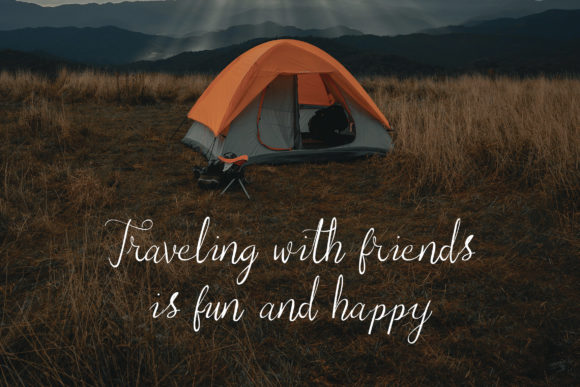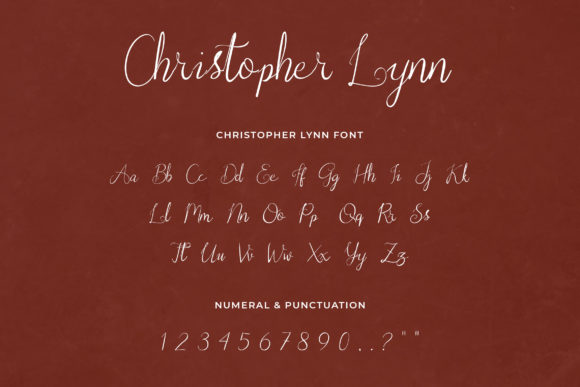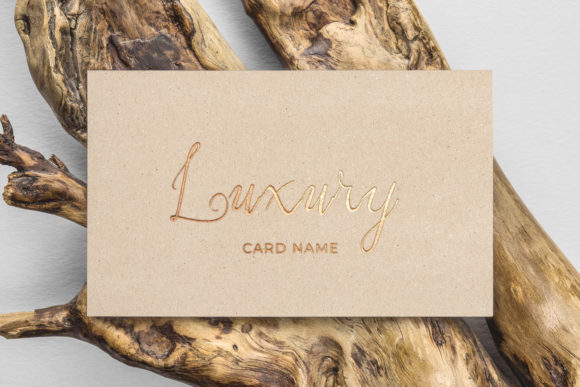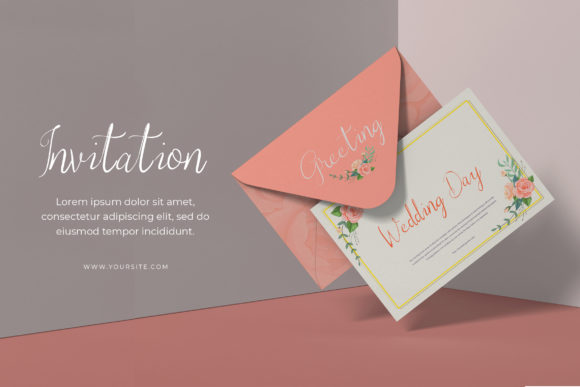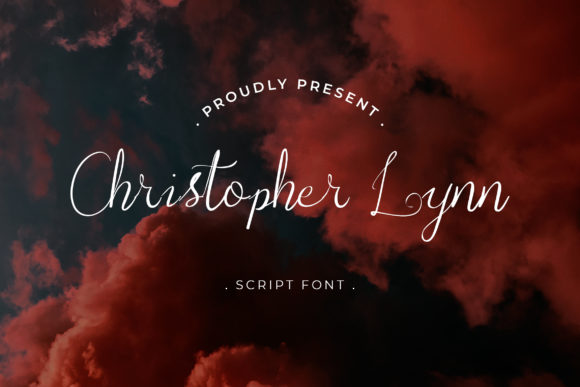
Discover the Elegance of Christopher Lynn Font: A Versatile Script Font for Designers
In the realm of typography, few fonts manage to strike a balance between sophistication and trendiness. However, Christopher Lynn Font stands out as a remarkable exception. This thin and sophisticated script font has captured the hearts of designers and crafters alike with its unique blend of formality and casual charm. In this article, we’ll delve into the characteristics, uses, and benefits of Christopher Lynn Font, exploring why it has become a favorite among creative professionals.
The Characteristics of Christopher Lynn Font
Christopher Lynn Font is distinguished by its slender lines and elegant flow, which contribute to its sophisticated appearance. The font’s design exudes a sense of refinement and luxury, making it perfect for projects that demand a high level of professionalism. Despite its formal look, Christopher Lynn also possesses a trendy vibe, allowing it to adapt seamlessly to a wide range of design contexts.
Versatility: The Key Strength of Christopher Lynn Font
One of the most compelling aspects of Christopher Lynn Font is its versatility. This font can effortlessly transition between formal and informal designs, making it an invaluable asset for designers who work on diverse projects. Whether you’re creating wedding invitations, fashion branding, or digital content, Christopher Lynn Font can be tailored to fit your specific needs.
For formal projects, such as luxury brand logos, event invitations, or high-end product packaging, Christopher Lynn Font brings a level of sophistication that is hard to match. Its elegant lines and refined appearance make it an excellent choice for any design that requires a touch of class.
On the other hand, for more casual or creative projects, such as blog headers, social media graphics, or DIY crafts, Christopher Lynn Font can be used in a way that feels fresh and contemporary. Its trendy vibe ensures that your designs feel current and engaging, appealing to younger audiences or those looking for a modern aesthetic.
Exploring Endless Variations
Another advantage of Christopher Lynn Font is the vast array of design possibilities it offers. The font can be manipulated and customized in numerous ways, allowing designers to explore endless variations. By adjusting the font size, color, spacing, and pairing it with complementary fonts, you can create a unique look that perfectly aligns with your project’s objectives.
Tips for Using Christopher Lynn Font Effectively
To make the most of Christopher Lynn Font, consider the following tips:
• Pair it with complementary fonts: Combining Christopher Lynn Font with sans-serif fonts can create a striking contrast that enhances the overall visual appeal of your design.
• Experiment with colors: While the font’s elegance shines through in black or dark colors, don’t hesitate to explore brighter hues or gradients to add a modern twist.
• Play with sizes: Using varying font sizes can help create a hierarchy in your design, guiding the viewer’s eye through the content.
Author uicreativenet
Christopher Lynn Font is more than just a script font; it’s a powerful design tool that offers a perfect blend of sophistication and trendiness. Its versatility, elegance, and endless variations make it an ideal choice for designers and crafters looking to elevate their projects. Whether you’re working on a formal or informal design, Christopher Lynn Font invites you to explore its vast creative potential. So, have fun with this beautiful font, and let your imagination run wild!